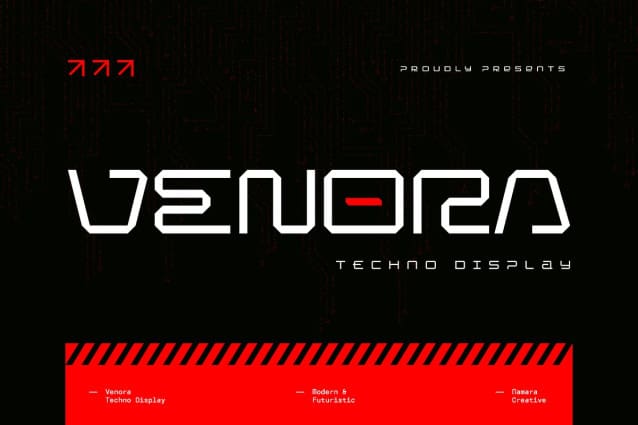
Venora Font
Venora Font a modern typeface with clean lines and sharp angles gives it a techno-futuristic look. Versatile and stylish choice for any design project that requires a high-tech edge. Ideal for use in digital design and printable materials such as Web Header, Logo, Business Card and Poster.